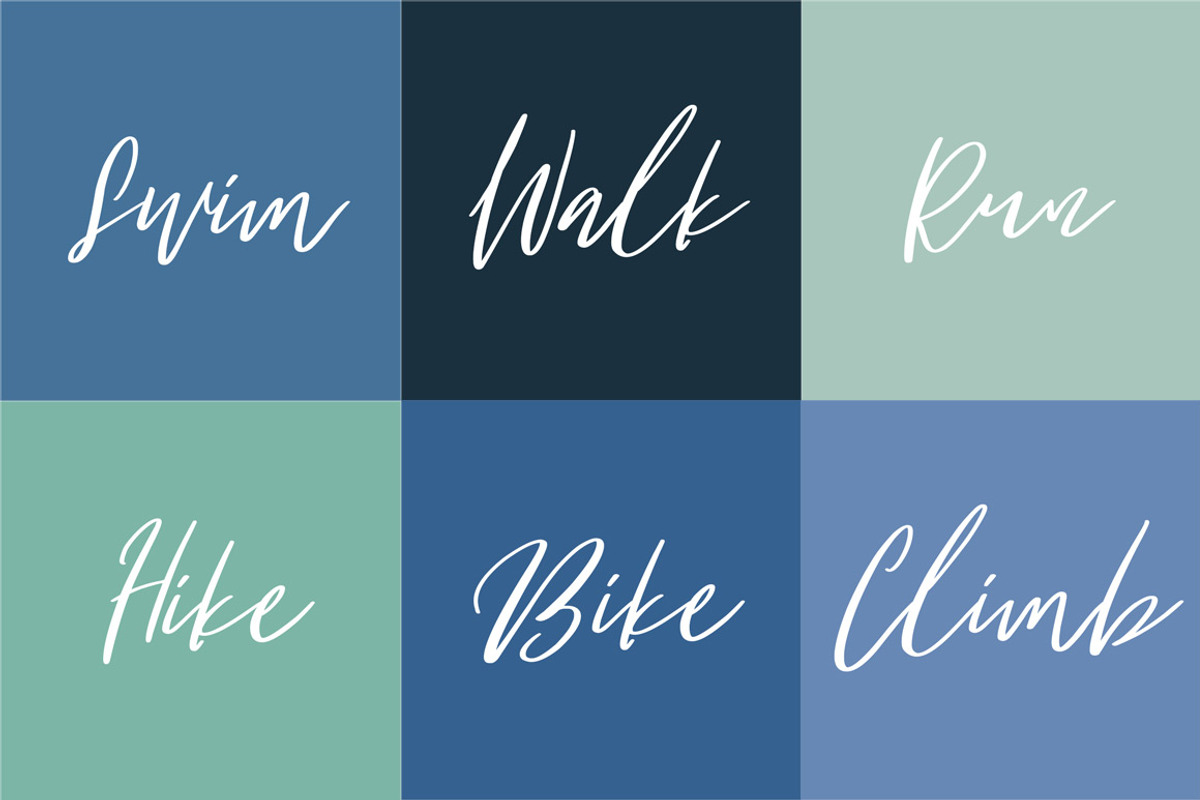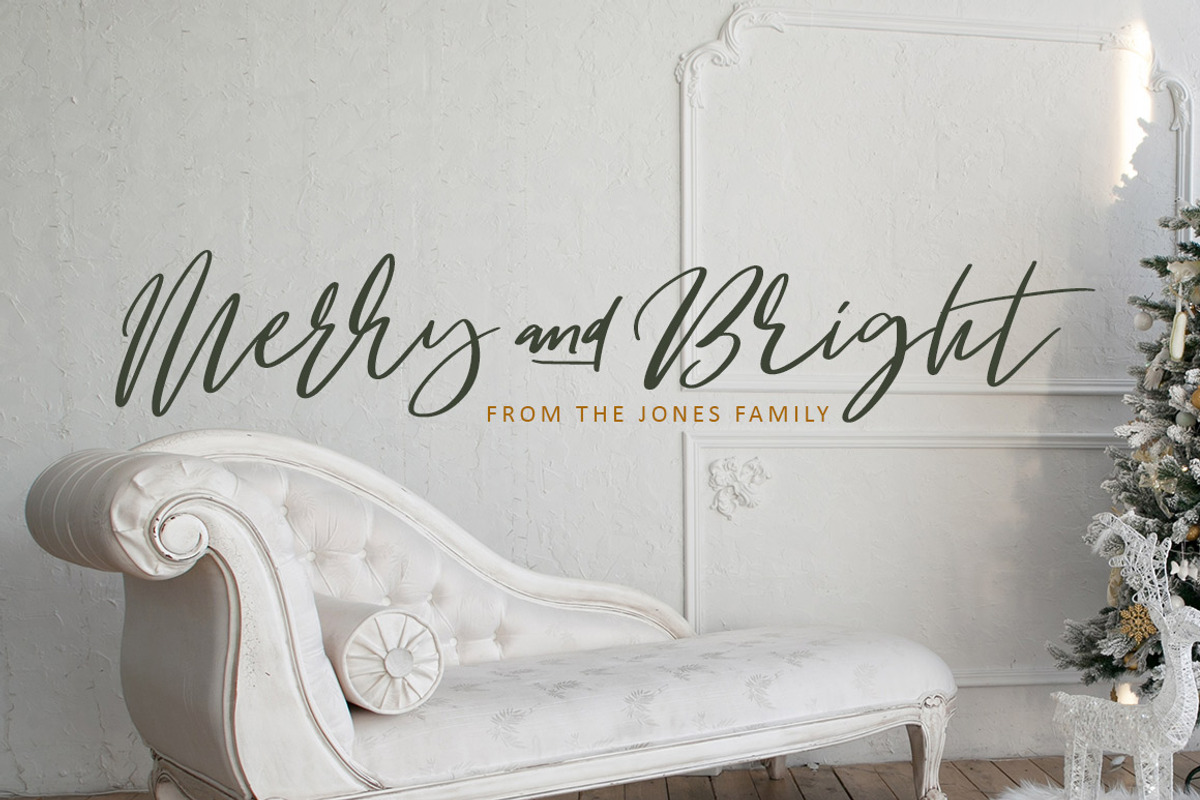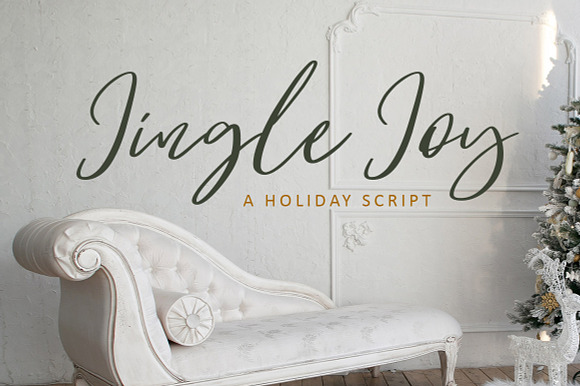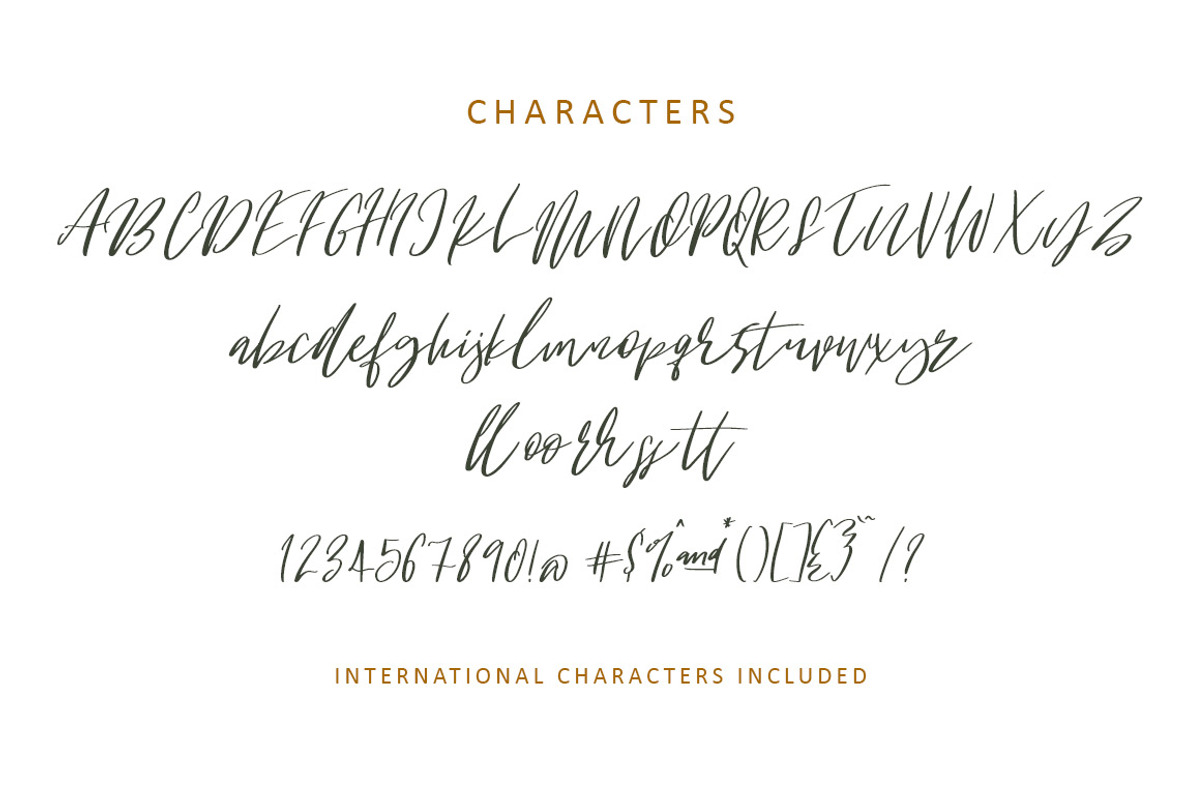
Jingle Joy Script Font
Introducing Jingle Joy script font.
A happy fun holiday script hand written just for you!
Includes international characters,
- Includes international characters, Enjoy!
Jingle Joy Script Font by Creativeqube Design fits naturally into Branding, posters, packaging, typography.